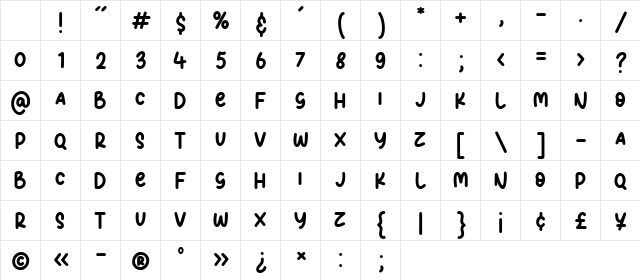
Complete Shadow Beamer Regular glyph index. Displaying only characters natively supported by Shadow Beamer Regular font.
Shadow Beamer is built around its visual character rather than neutral utility - its distinctive forms are designed to make an impression at display sizes.
Font Pairing: Pair with a clean neutral sans-serif for body copy to let Shadow Beamer's character lead without overwhelming the composition.
Pro Tip: Use Shadow Beamer exclusively at display sizes - it was designed to be seen, not read at length. Let a neutral companion handle body copy.